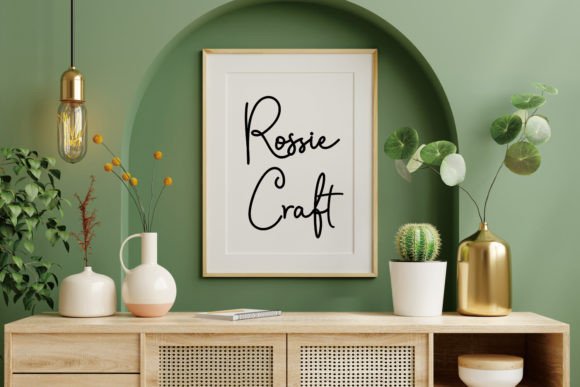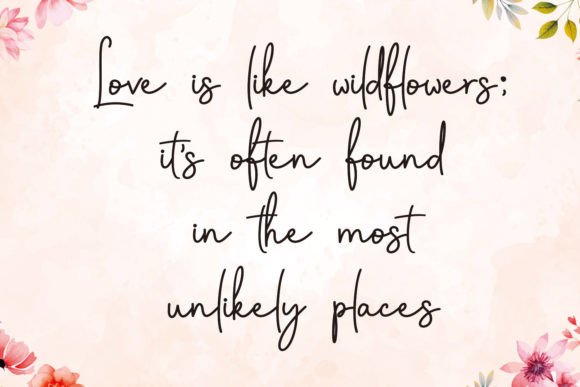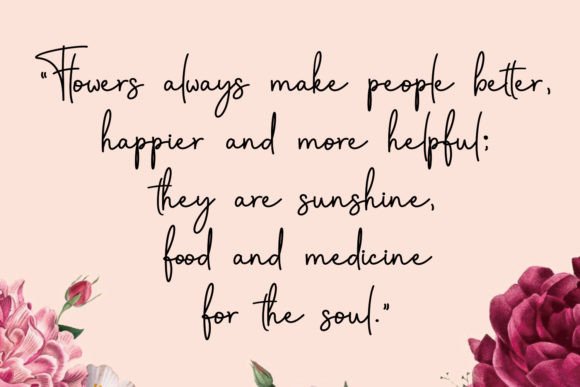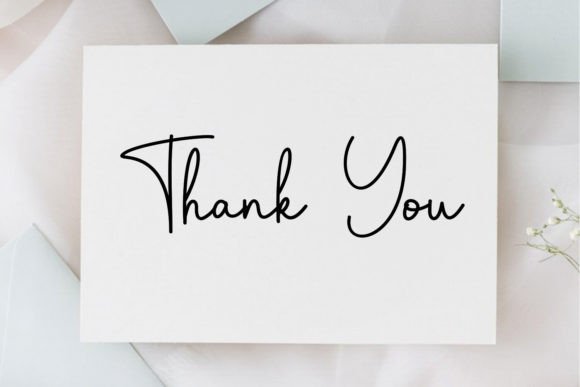
Introduction to Snapdragon Font
Introducing Snapdragon font – a captivating modern script handwritten font designed to elevate your embroidery, posters, souvenirs, designs, thumbnails, Thanksgiving creations, and more.
Immerse your projects in the essence of contemporary elegance with this stylish font, perfect for adding a touch of sophistication to your craft, Christmas designs, and craft lettering endeavors Let Snapdragon be the brushstroke that brings your ideas to life.
Key Features of Snapdragon Font
Why Choose Snapdragon Font?
Snapdragon Font offers exceptional quality and versatility, making it a valuable addition to your design toolkit. Whether you’re creating for personal projects or commercial use, Snapdragon Font delivers professional results.